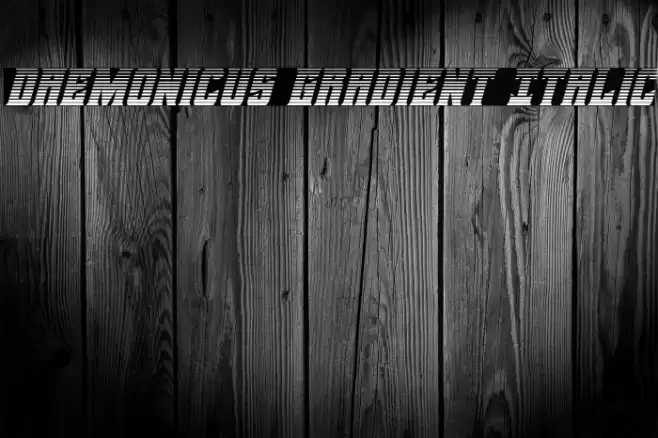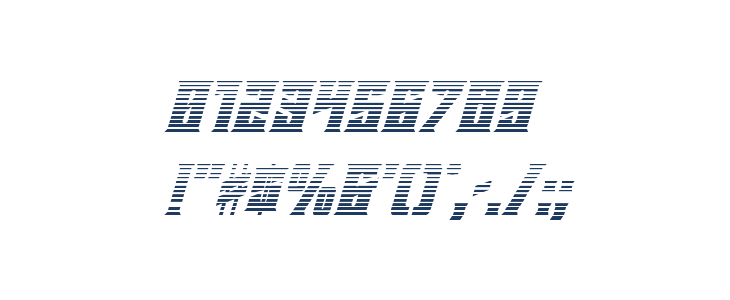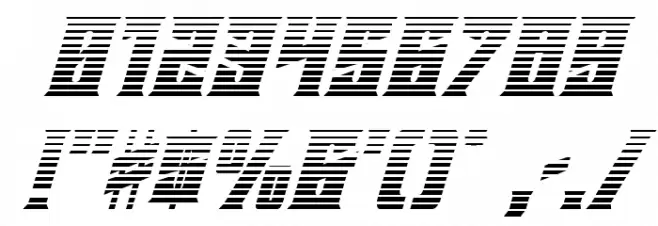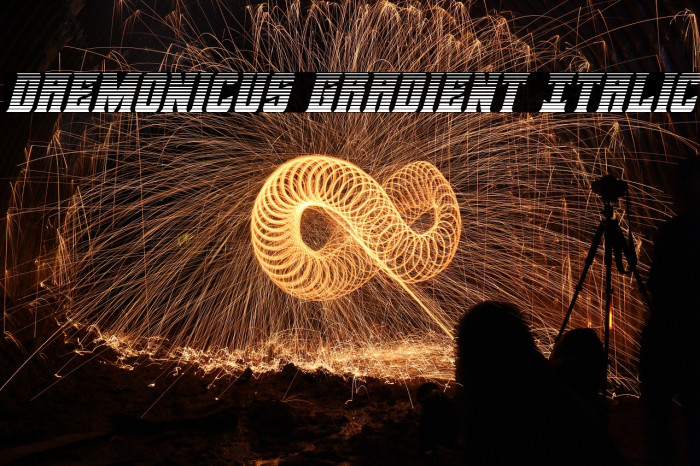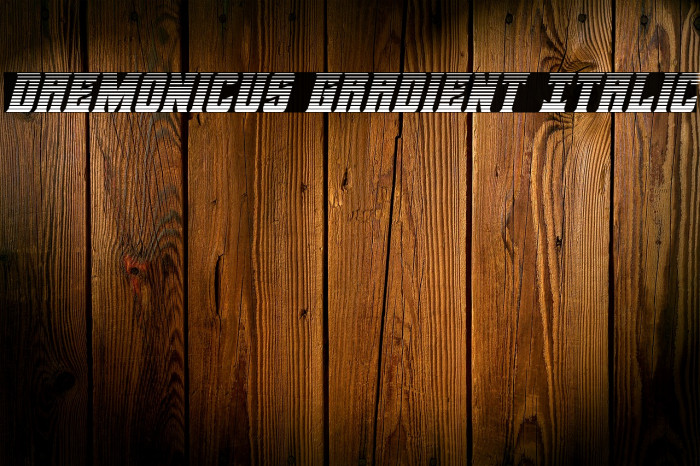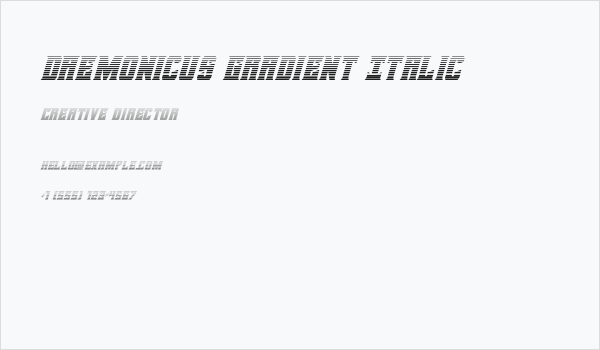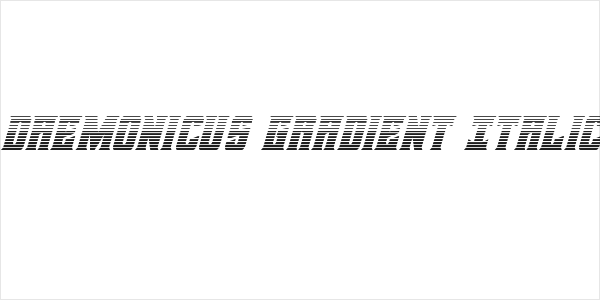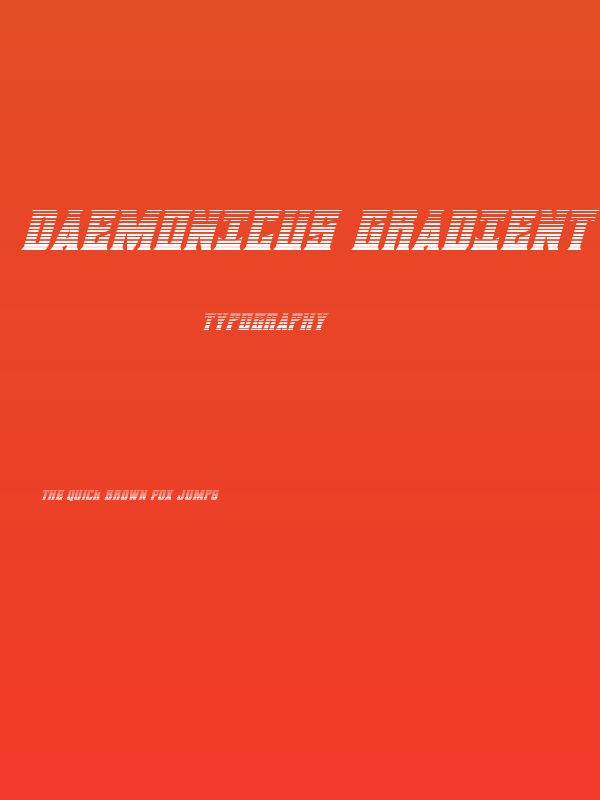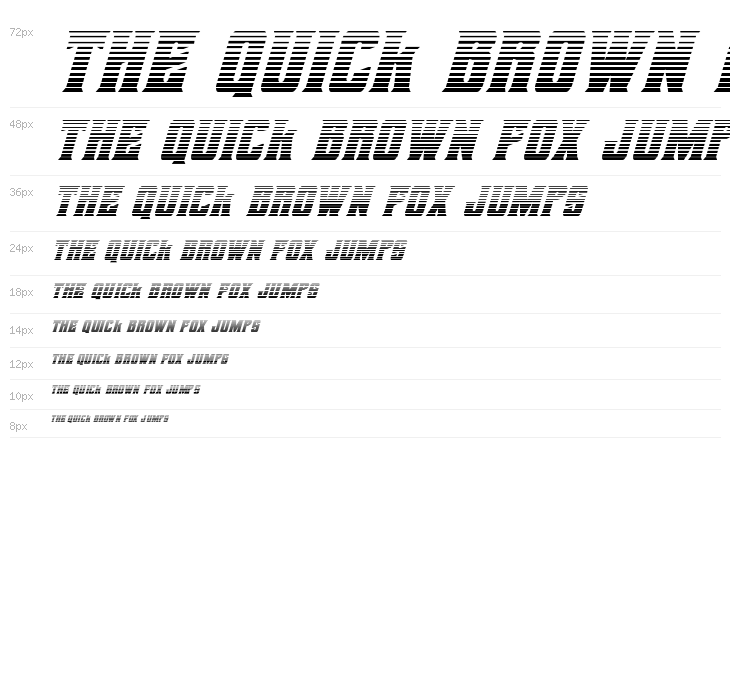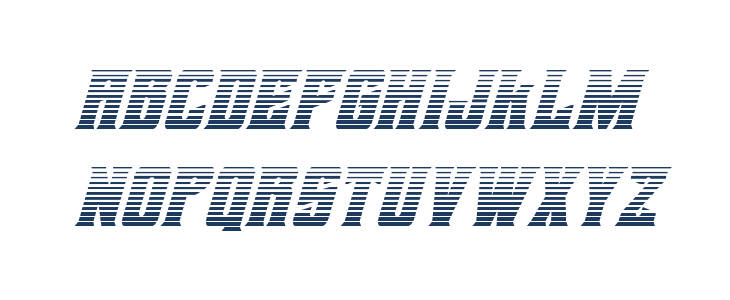
Daemonicus Gradient Italic Font
Daemonicus Gradient Italic Description
This font features a bold, italicized style with a distinctive gradient effect created by horizontal lines running through each character. The uppercase and lowercase letters, as well as numbers and special characters, all share this unique striped pattern, giving the font a dynamic and futuristic appearance. The slanted design adds a sense of motion and energy, making it stand out in any design project. The characters are wide and have a strong presence, suitable for attention-grabbing headlines or logos. The spacing between characters is tight, enhancing the compact and cohesive look of the text.
A bold, italicized font with a gradient effect and dynamic striped pattern from Uncategorized fonts.
- Proposed Projects: Ideal for futuristic designs, tech-related branding, sports team logos, and eye-catching headlines.
- Character Spacing: Tight